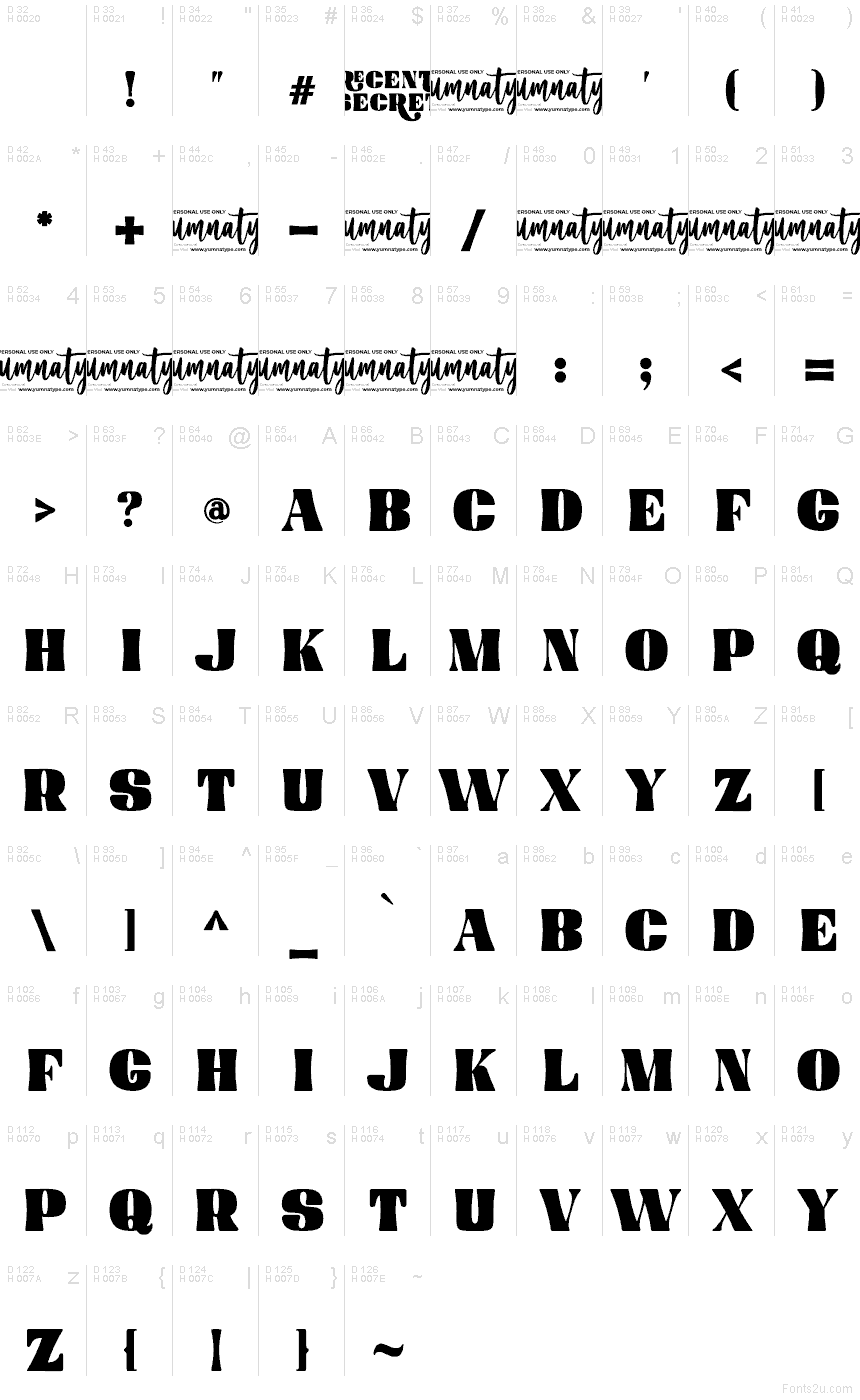
Recent Secret Personal Use
Recent Secret font by Yumna Family is a free retro display typeface with a bold, ink-heavy presence and sharp stencil cuts that carve light out of the darkness. Thick, slabby strokes feel almost printed with a loaded letterpress, while the angular gaps and chunked-out shapes give it a secret-code edge—part protest poster, part underground club flyer. There’s a satisfying tension between its rigid verticals and broken contours, creating a dramatic rhythm that grabs attention in a single word.
Using Recent Secret, you get a headline voice that’s built to shout from the page: striking on posters, album covers, event flyers, packaging, social media graphics, and bold branding lockups. This free font works best at large sizes, where the stencil details and chunky counters can really breathe. Pair it with a clean, neutral sans serif for body text to let Recent Secret handle all the attitude while the supporting type stays quiet.